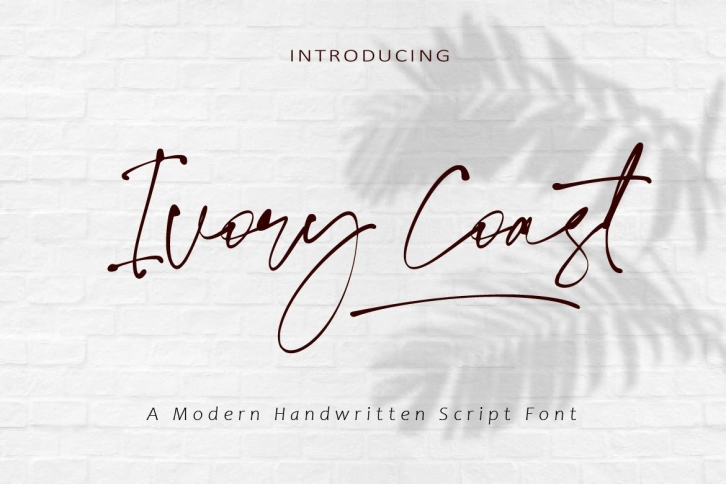
Ivory Coast is a trendy and unique font with an authentic style. It was designed by aminmario and it's a great choice for creative people who need such a font. It was released on August 26, 2021 and the file size is 17.13 MB. Ivory Coast will add an organic vibe to any design idea!